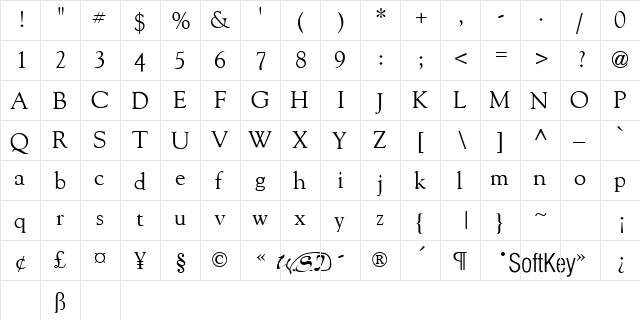
GildedCage Regular
Design Context for GildedCage Typeface
GildedCage offers clean, dependable letterforms without strong stylistic allegiance, making it a practical choice for designers who need flexibility.
Pro Tip: Pair GildedCage with a font of contrasting weight or personality to build a more expressive typographic hierarchy.